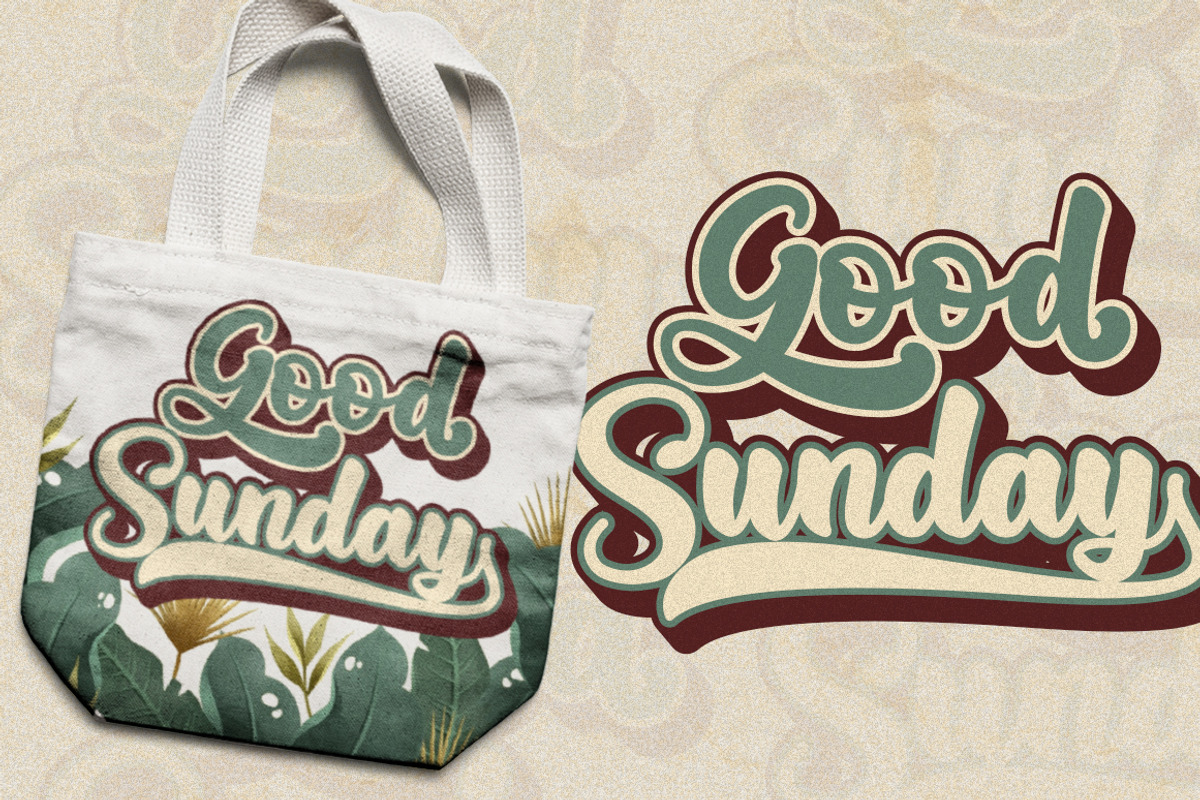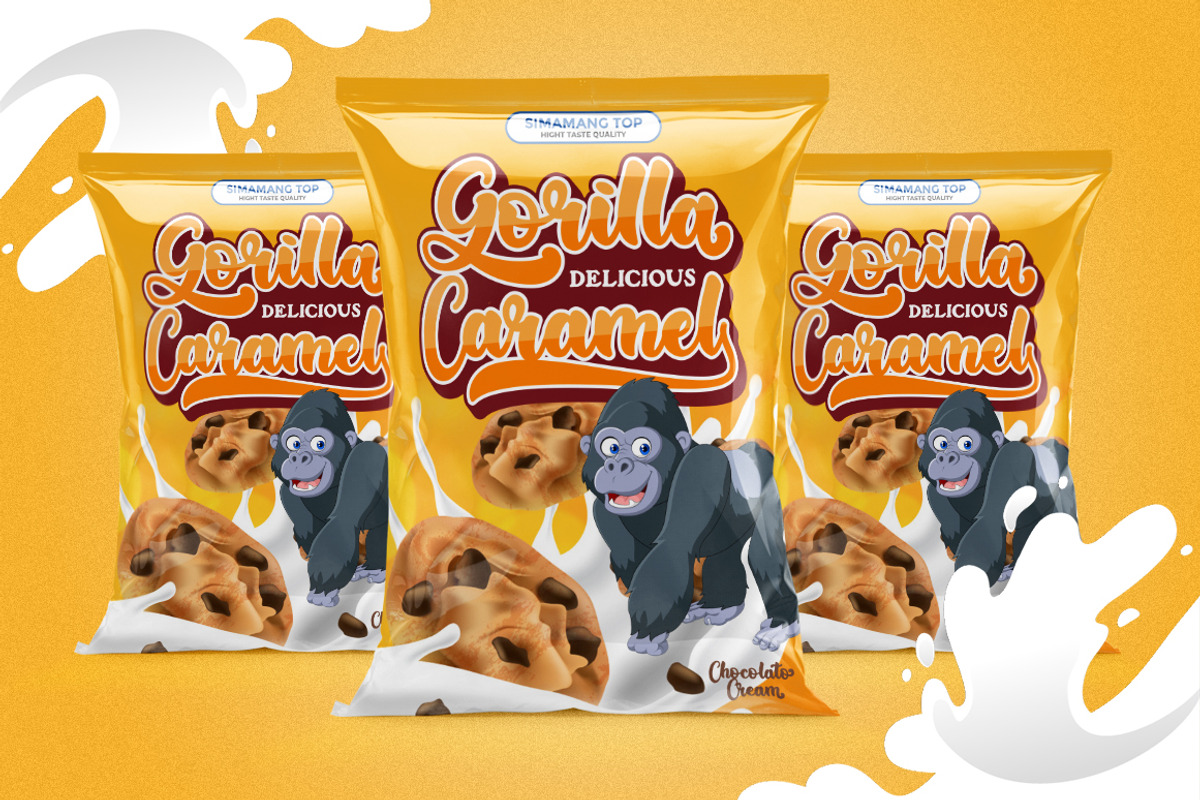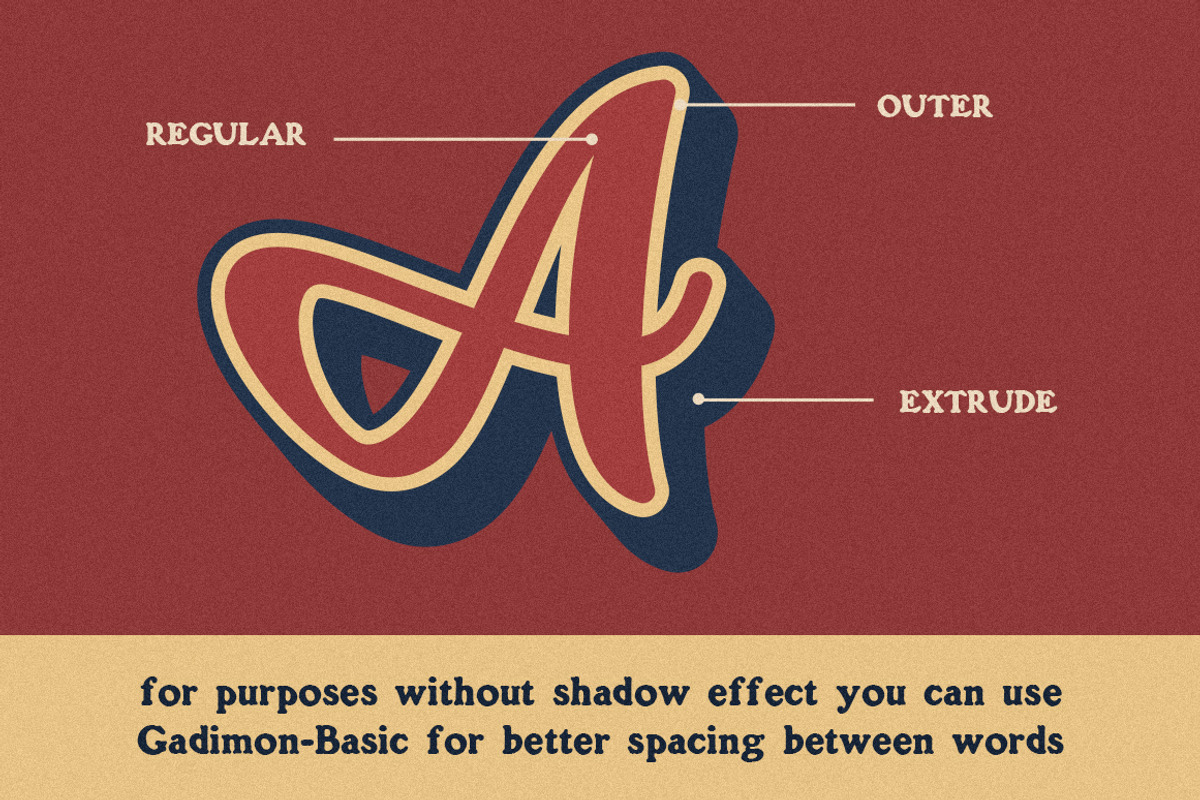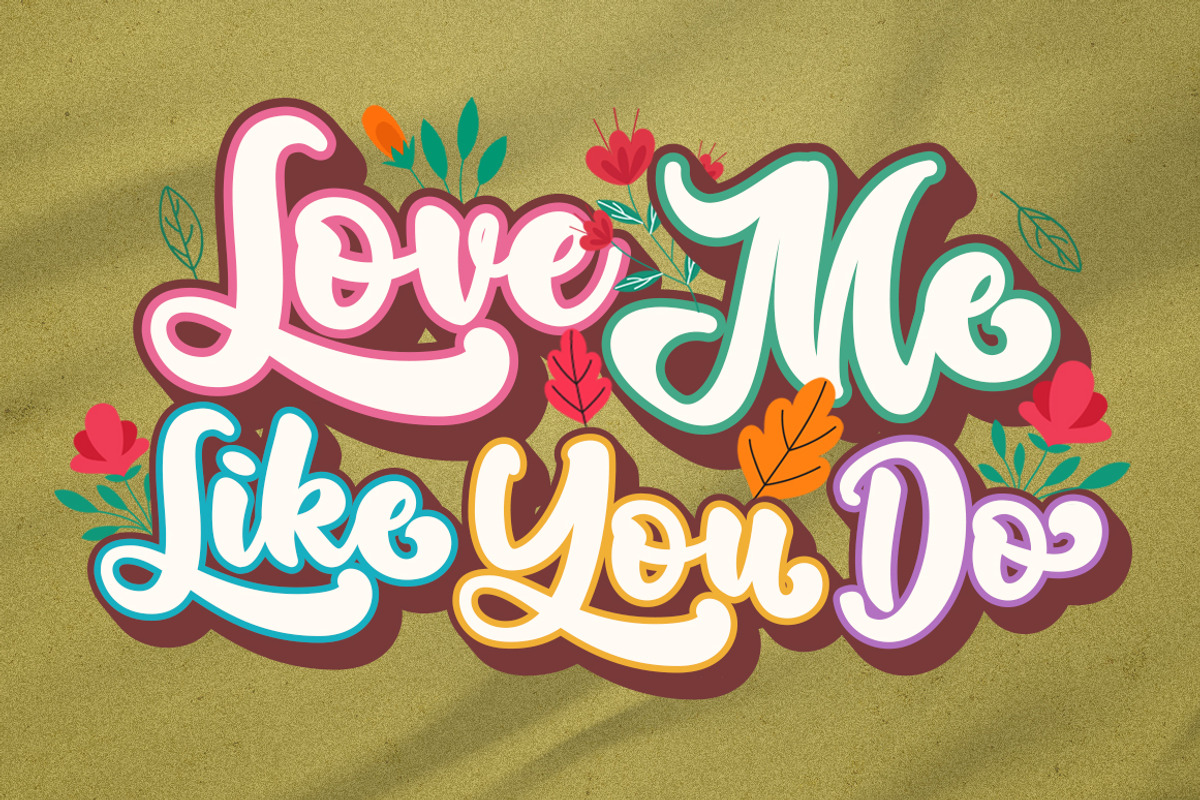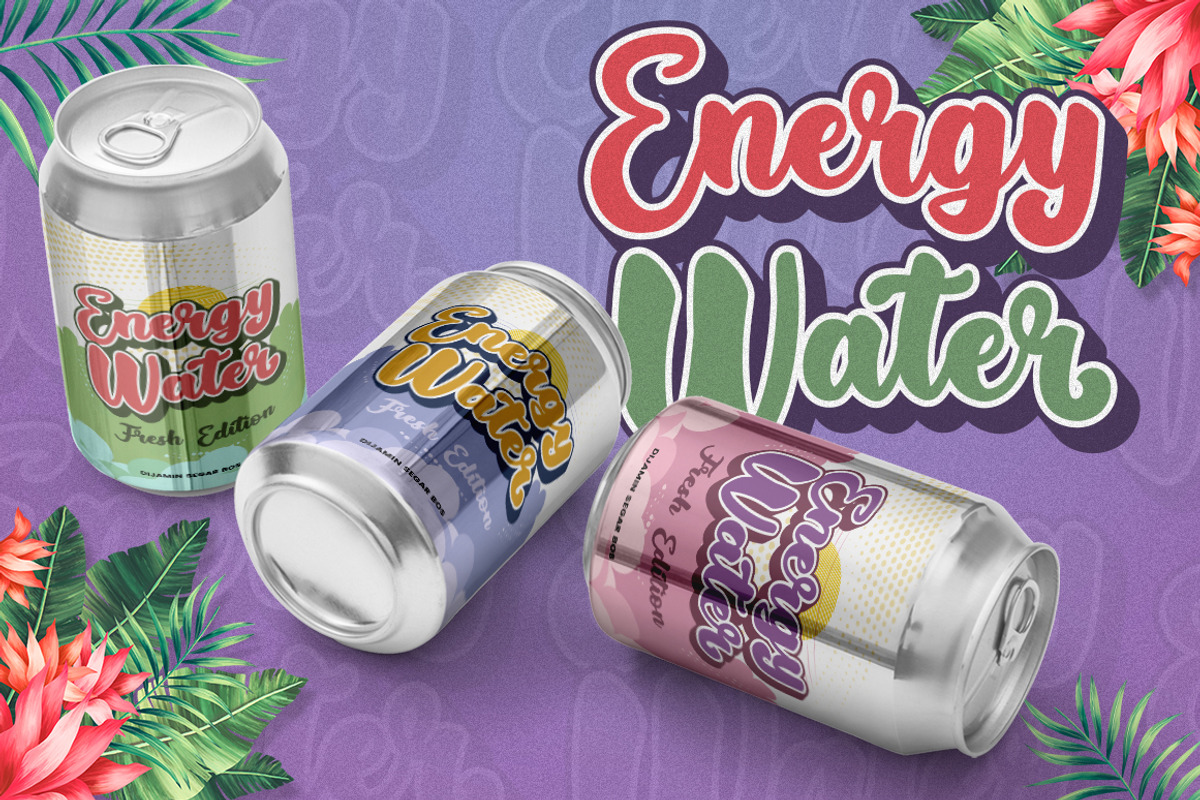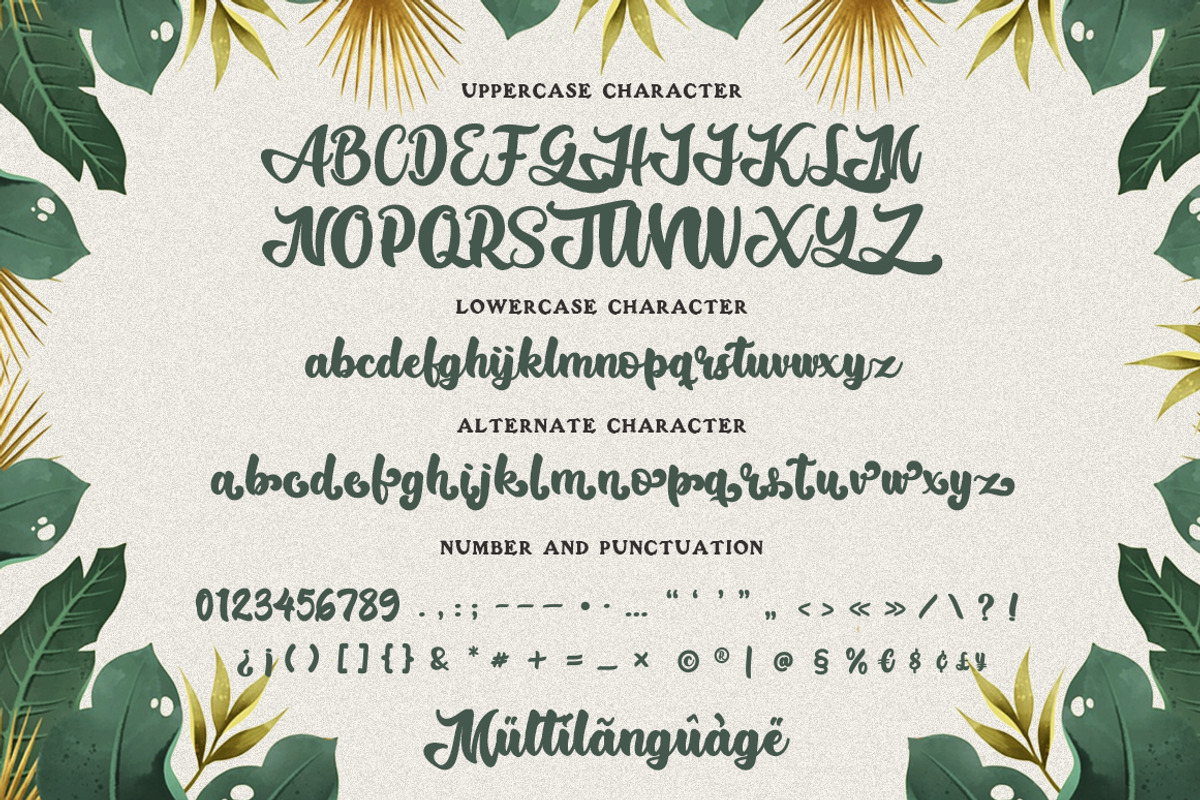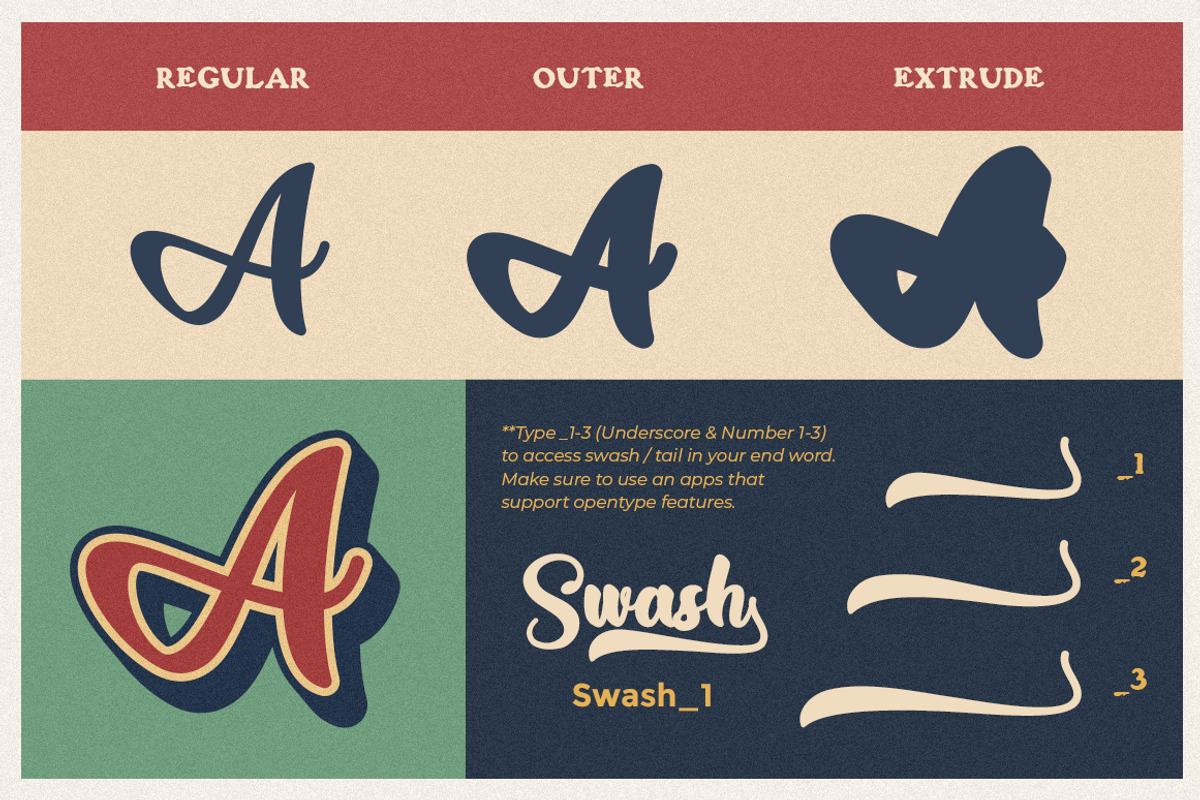
Gadimon Layered Font
Introducing Gadimon Layered Bold Script. This font is used with layers method, so it can generate interesting fonts to see, you no longer need to worry about how to make effect on the text.
This font is suitable to use as a logotype, product designs, label, watermark, social media posts, apparel, invitation, signboard, sports club, motor/car, special events or anything that need handwriting taste.
- Gadimon includes capital and lowercase letters, Alternates, and Ligatures